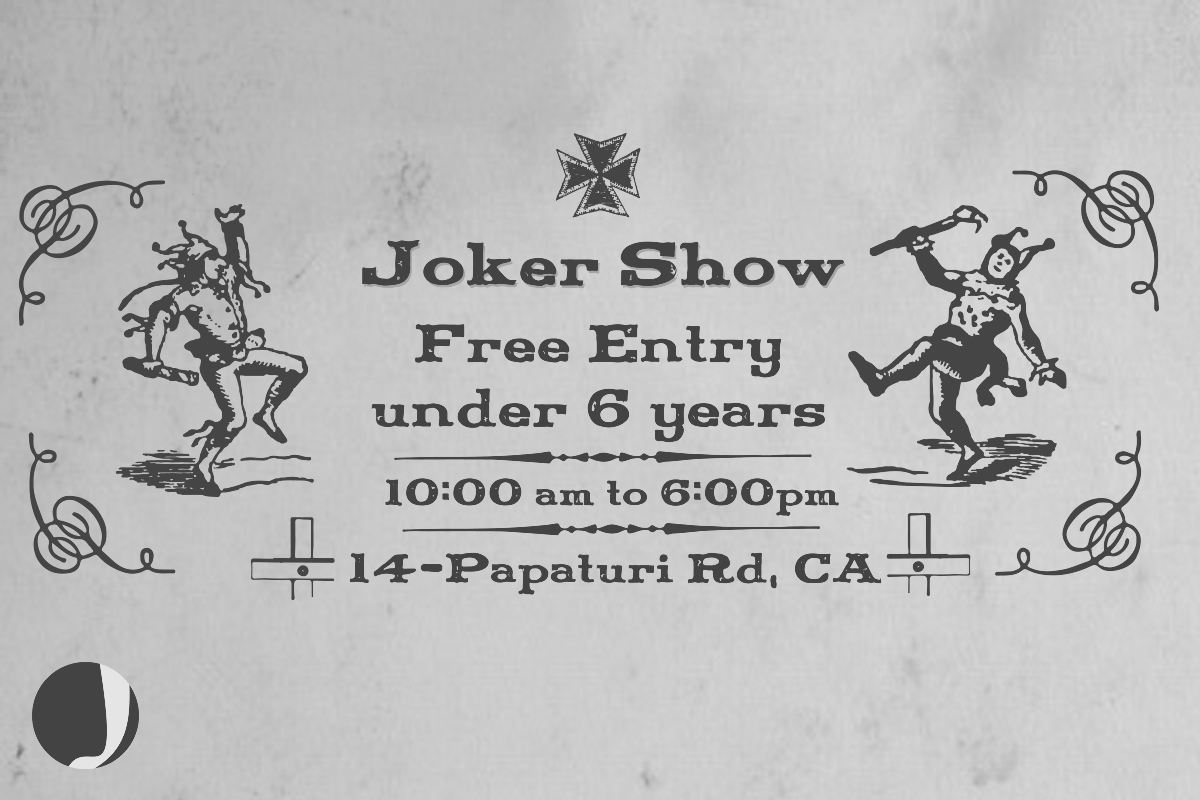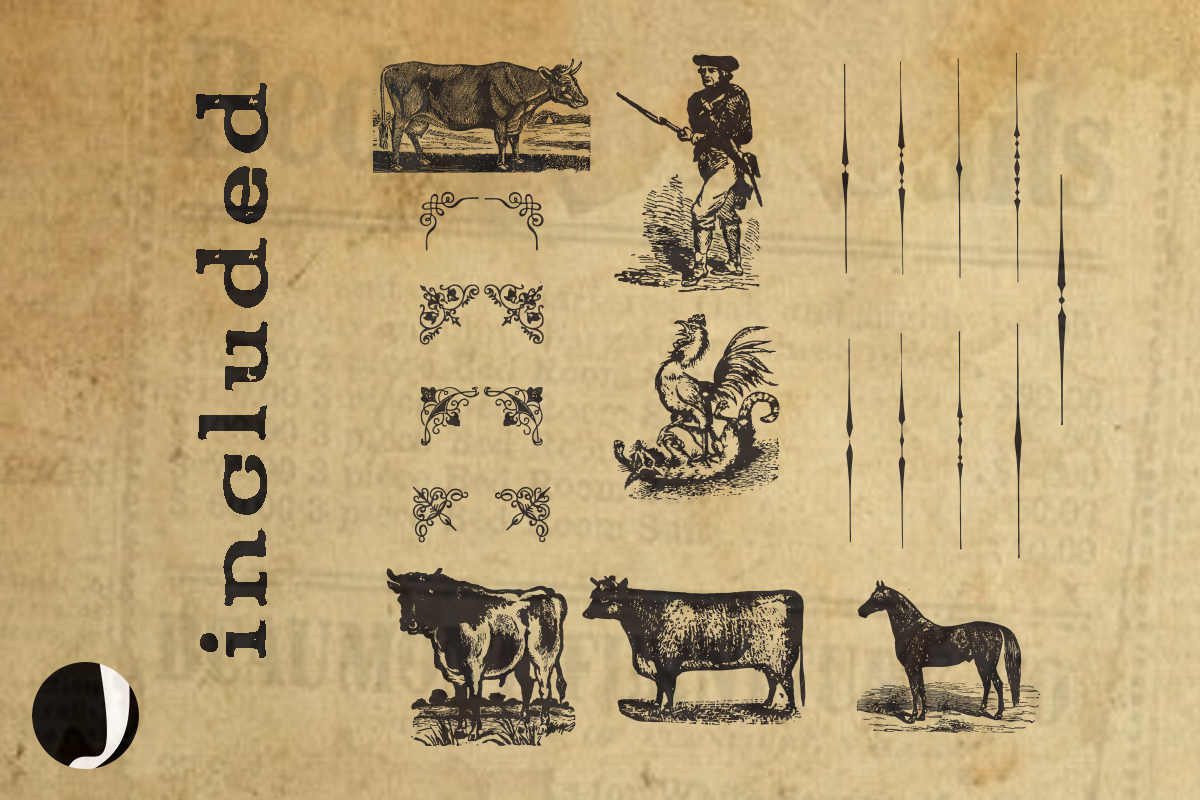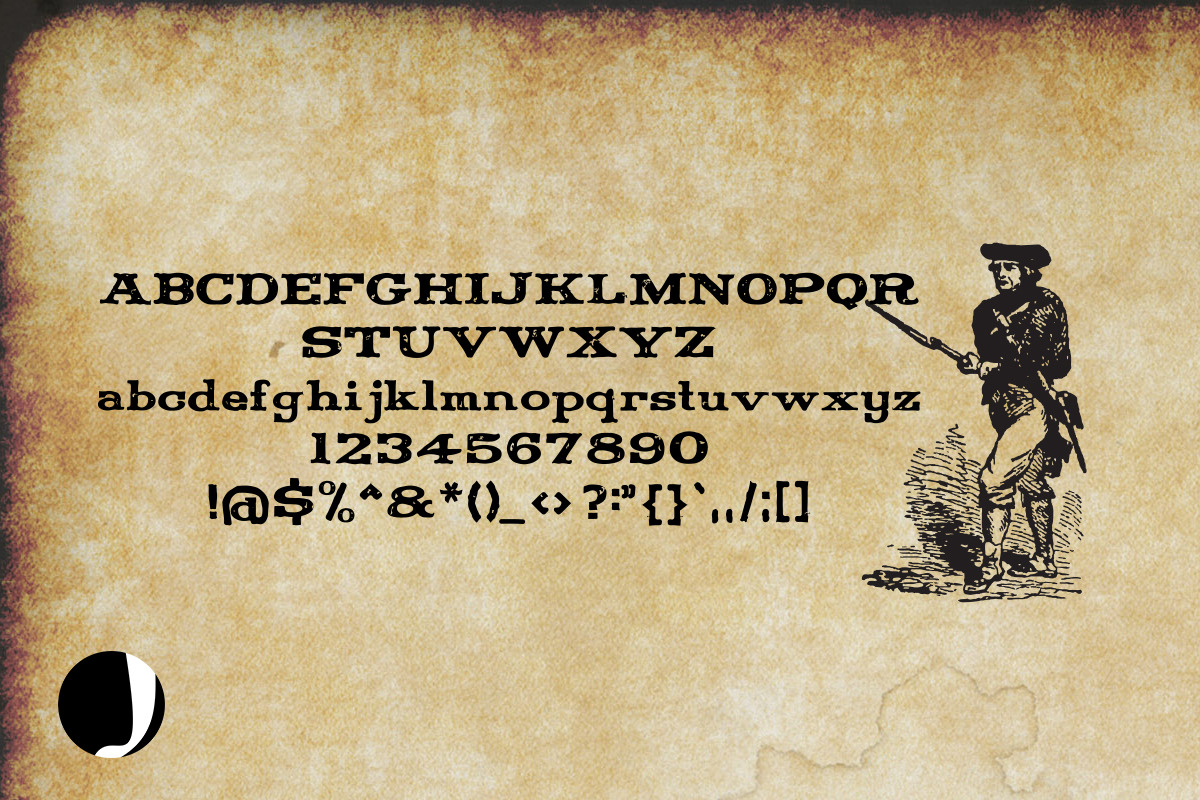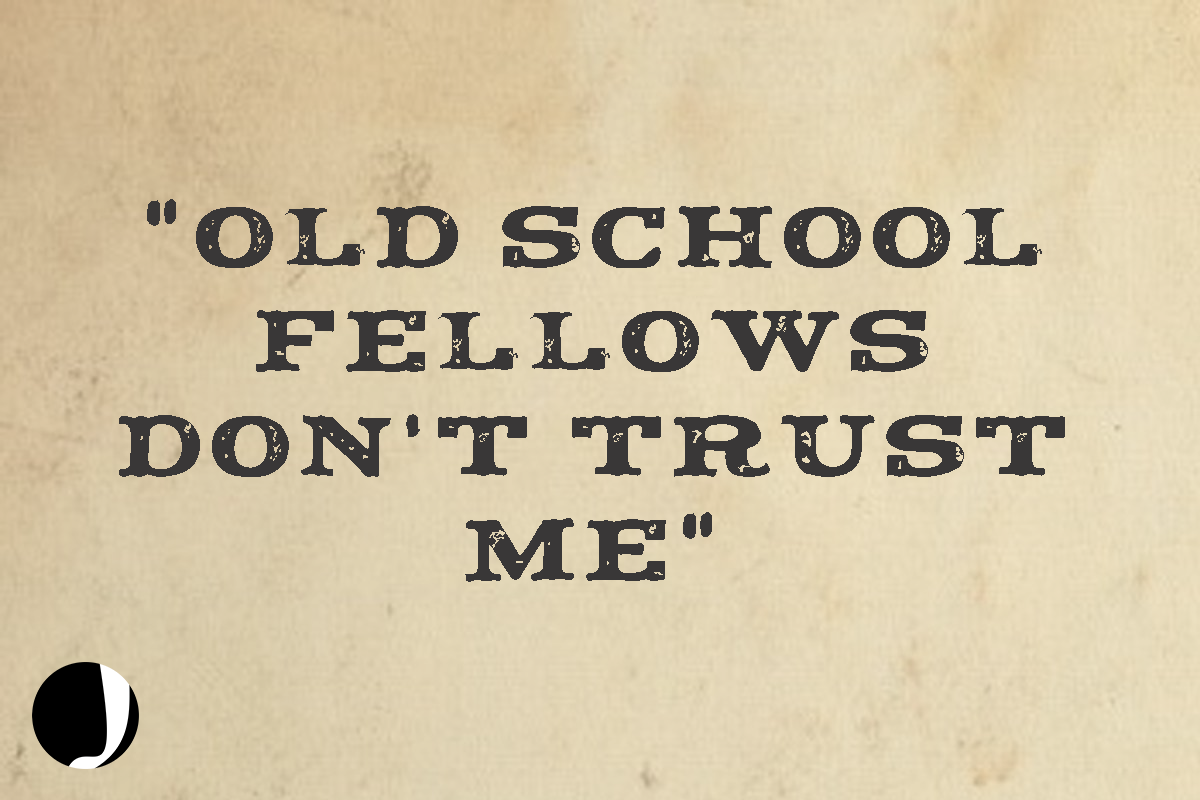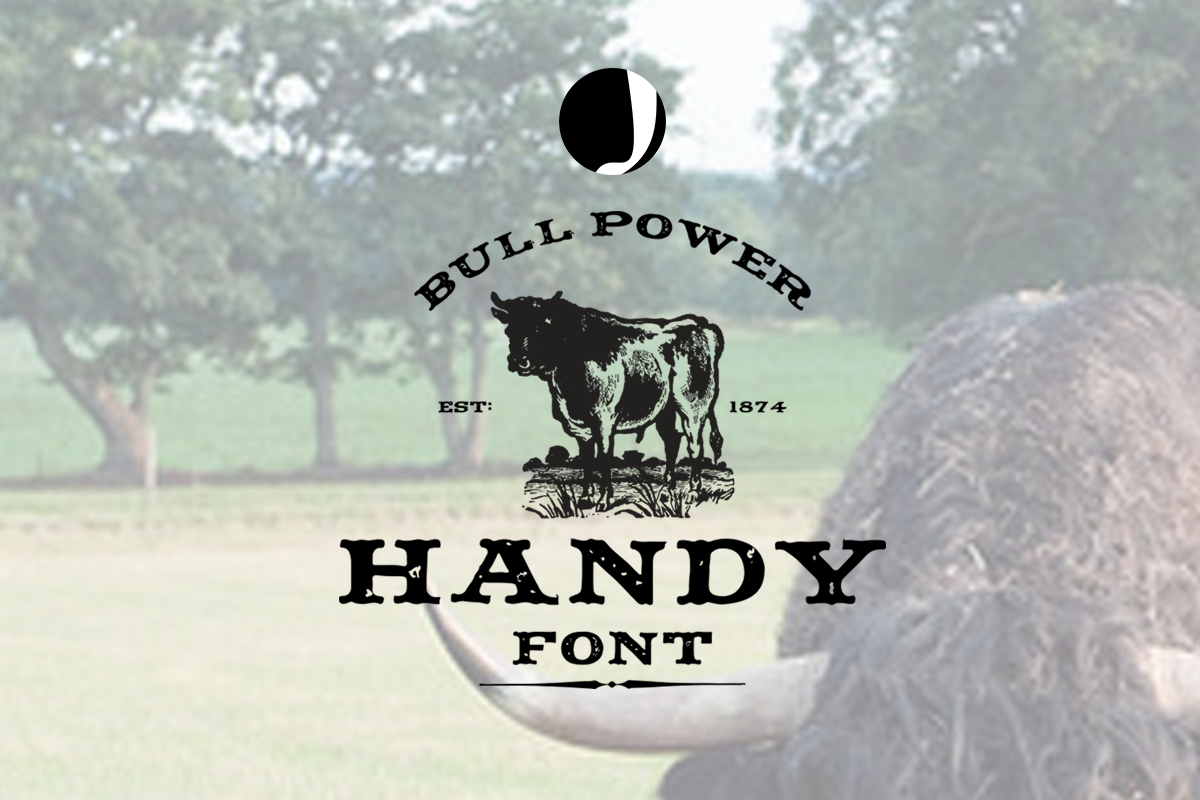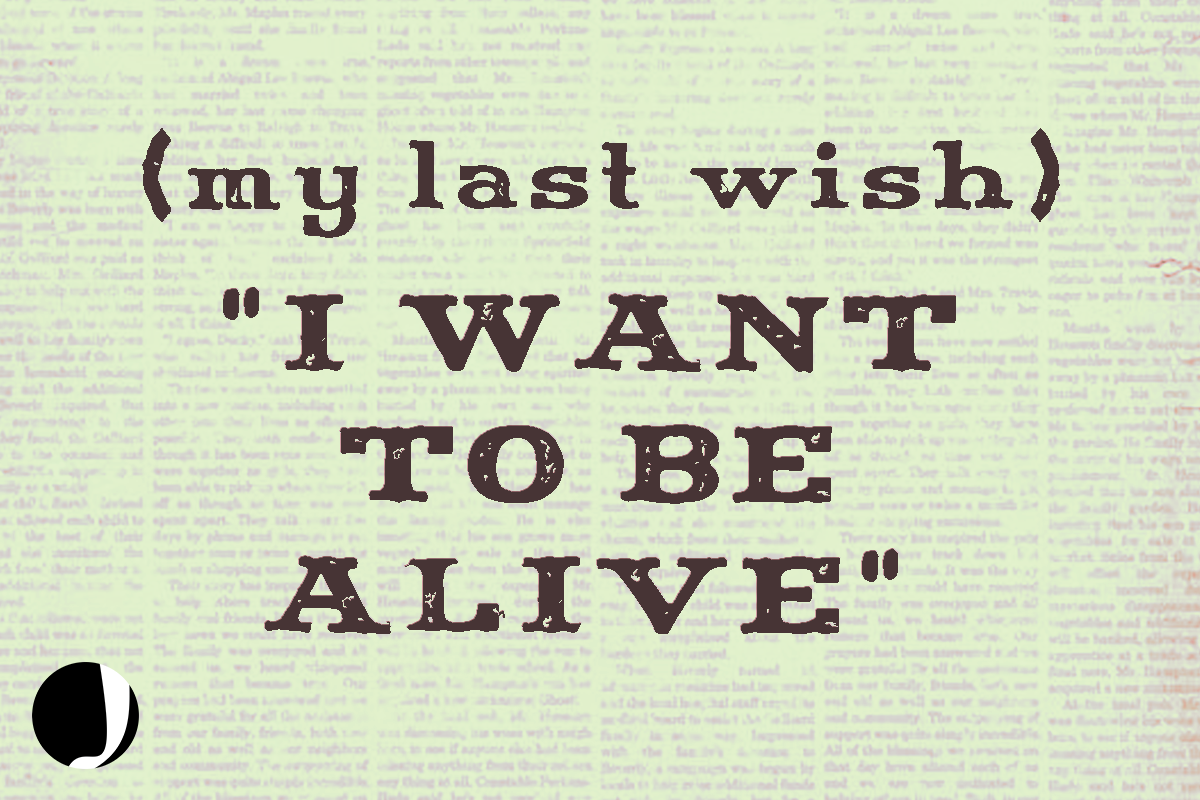
HANDY-Vintage Style Font
Here is HANDY vintage style font, inspired from old poster style in mid eighteenth cent. Unique with a flavor of modern look. Use this on your new project, designing a logo, wedding card, poster etc etc...... Feel free to drop your comments.....